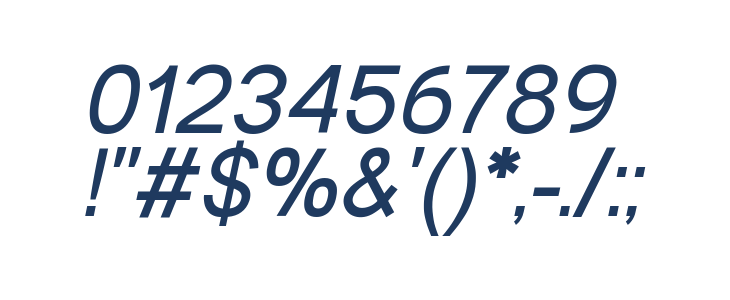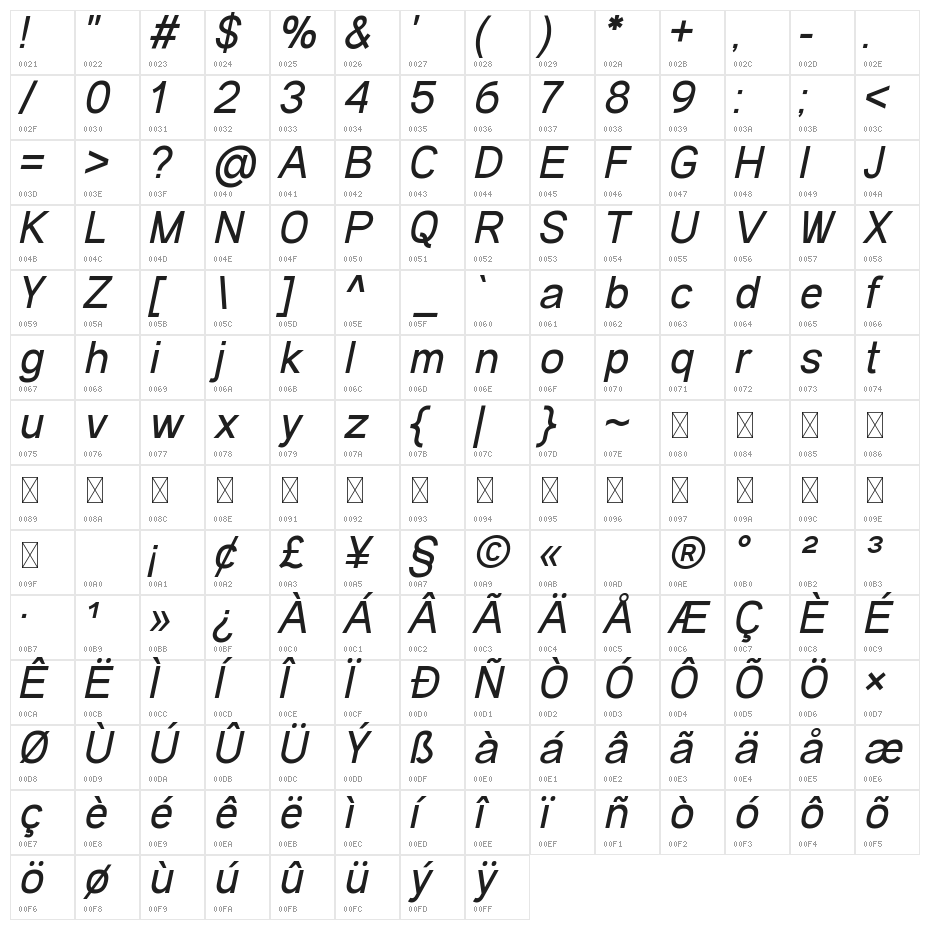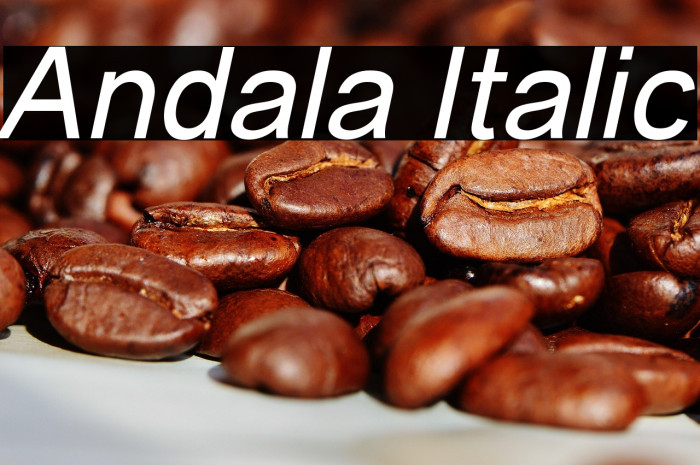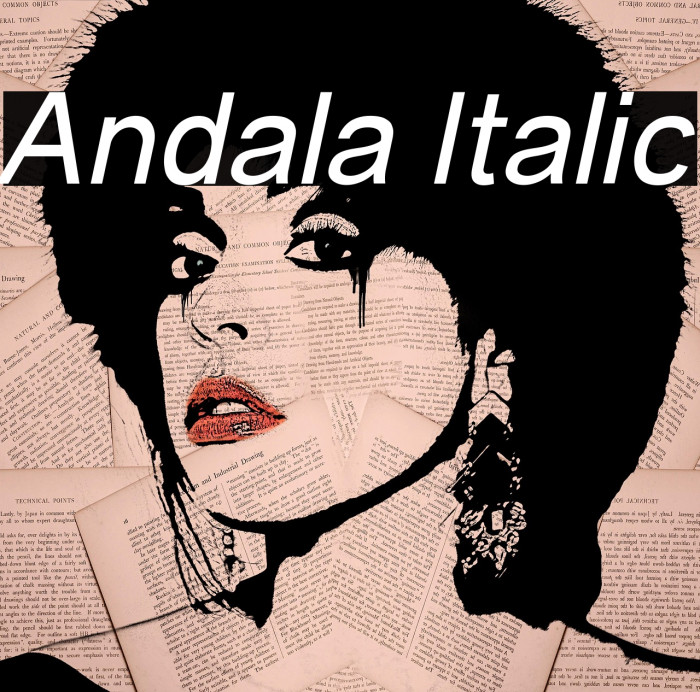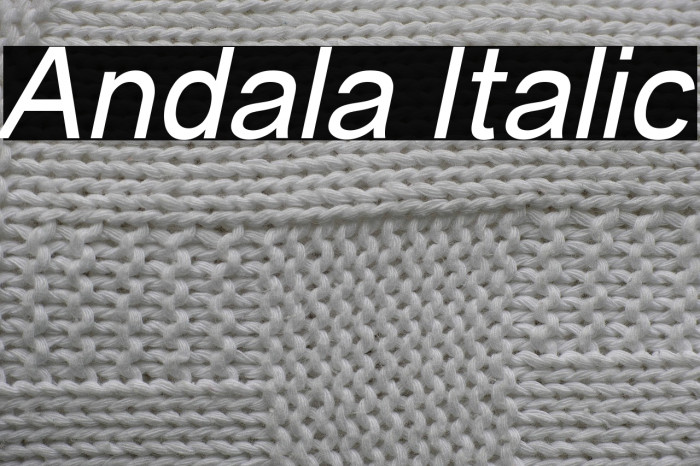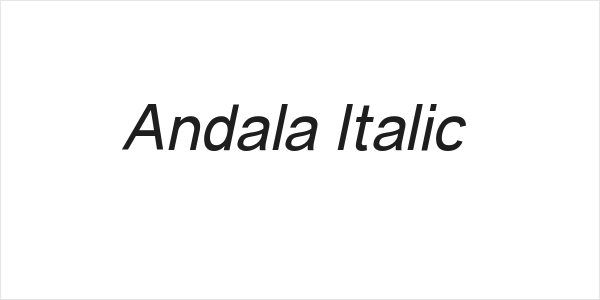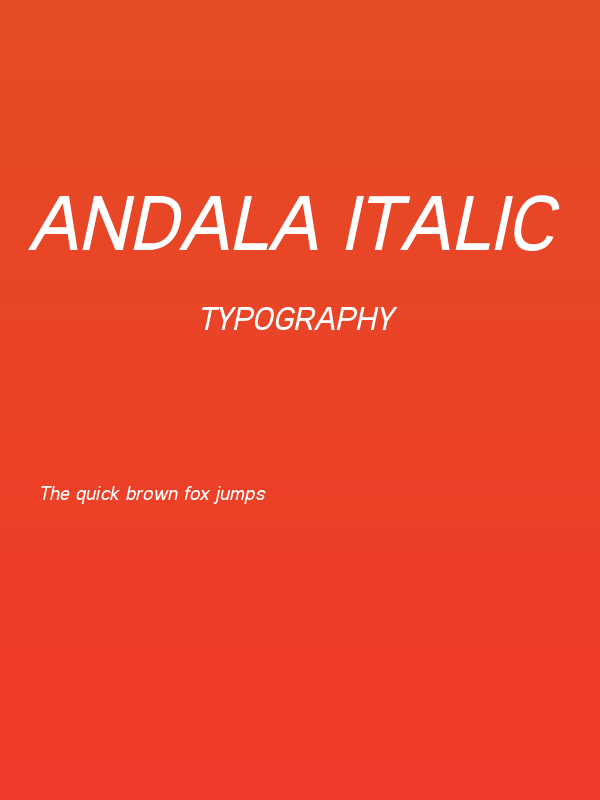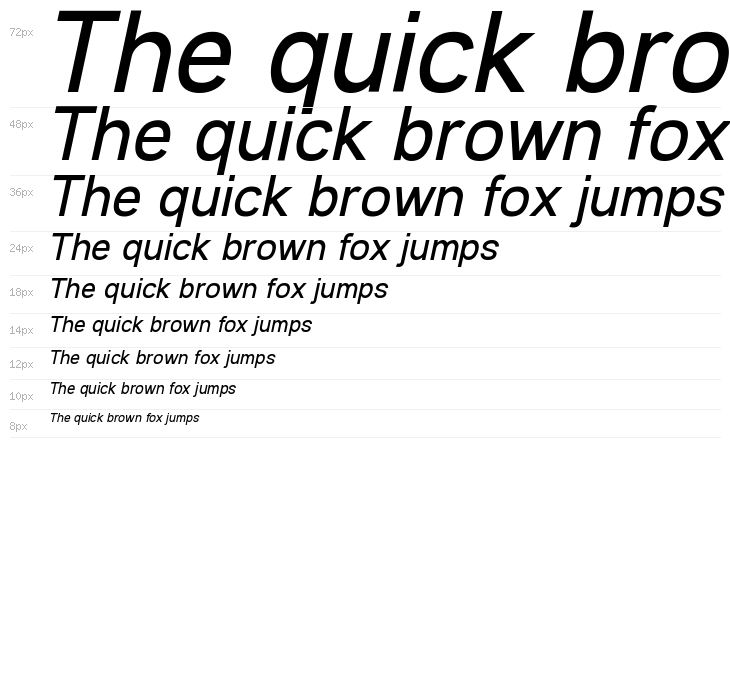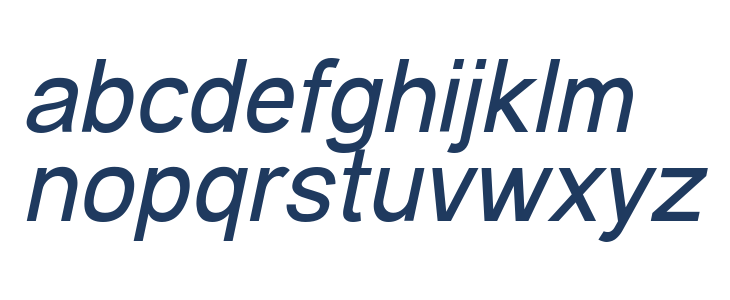
Andala Italic Font
Andala Italic Description
This font features a sleek and modern italic style, characterized by its smooth curves and slightly slanted letters. The uppercase and lowercase letters maintain a consistent flow, enhancing readability while adding a touch of elegance. The numerals are clear and distinct, complementing the overall design. Special characters are well-integrated, ensuring versatility across various applications. The font's design is both functional and aesthetically pleasing, making it suitable for a wide range of uses.